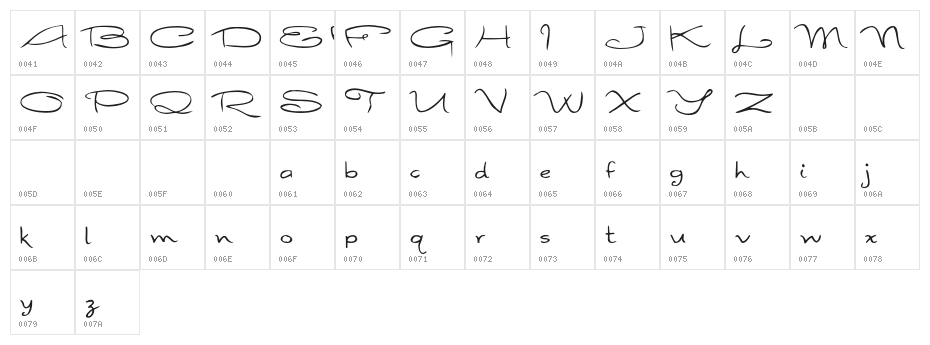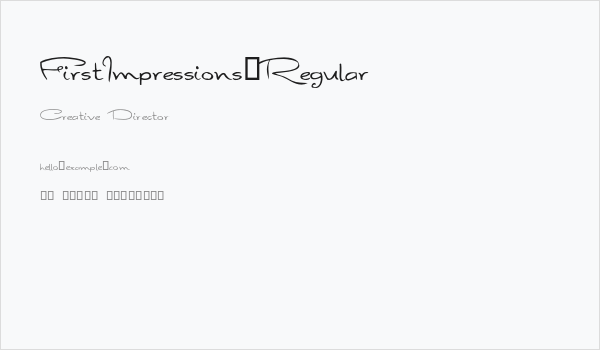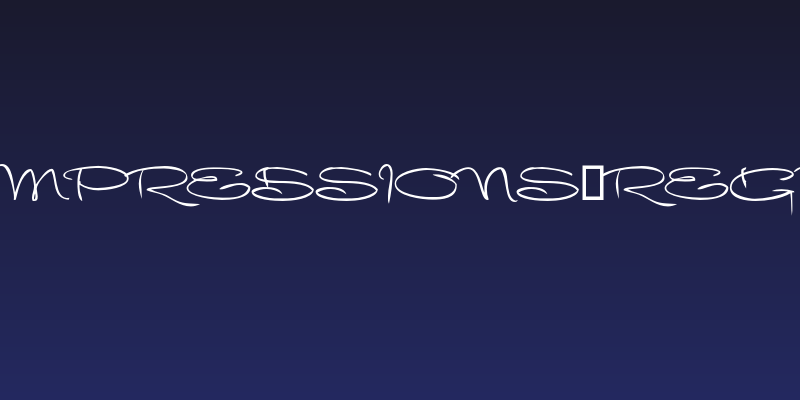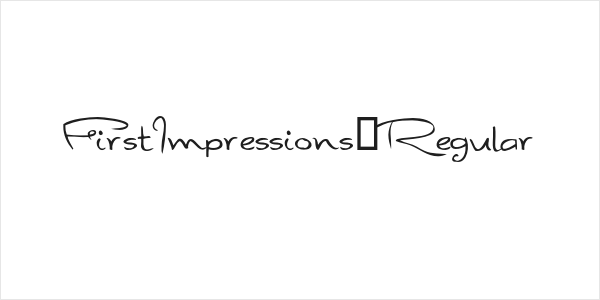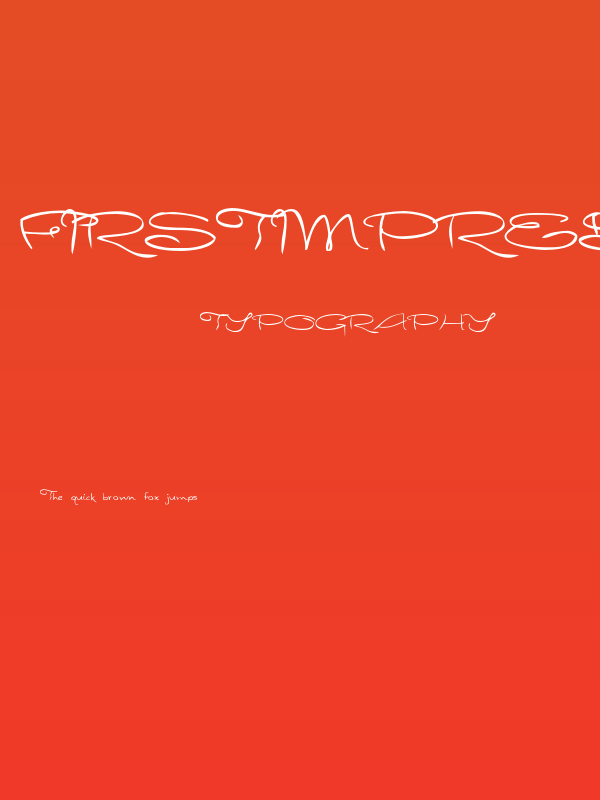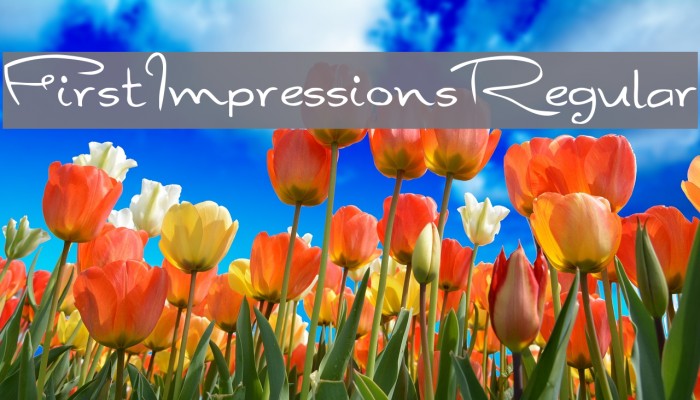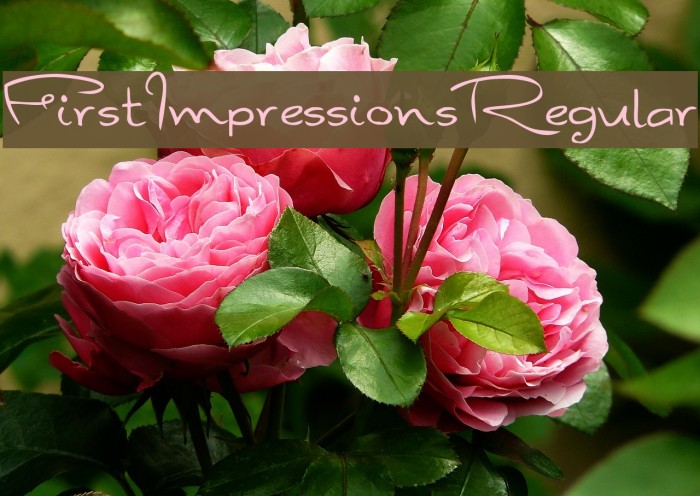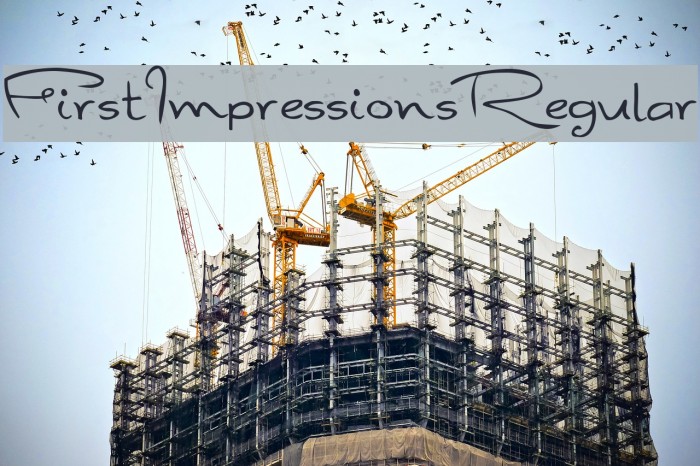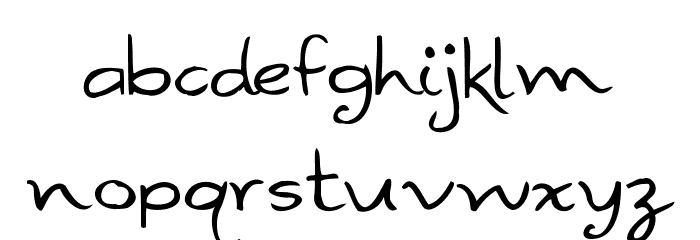
FirstImpressions-Regular Font
FirstImpressions-Regular Description
This font features a unique and artistic style with a handwritten appearance. The uppercase letters are elongated and slightly whimsical, giving a sense of elegance and creativity. The lowercase letters maintain a consistent flow with rounded edges and a casual feel. The numbers and special characters are designed to match the overall aesthetic, providing a cohesive look. This font is ideal for projects that require a personal touch or a creative flair, such as invitations, greeting cards, or artistic branding.
| Overall Style | Artistic, Creative |
| Use Case | Headlines, Artistic projects, Invitations |
| Proposed Projects | Ideal for invitations, greeting cards, artistic branding, and creative projects. |